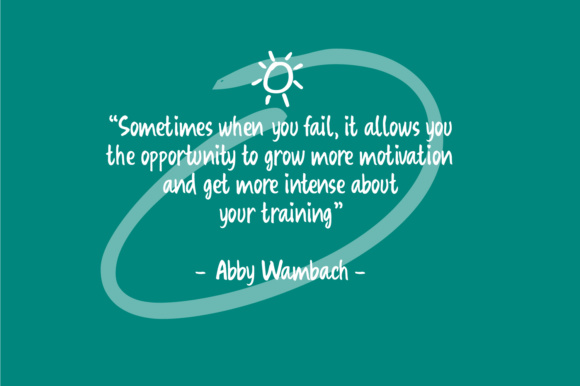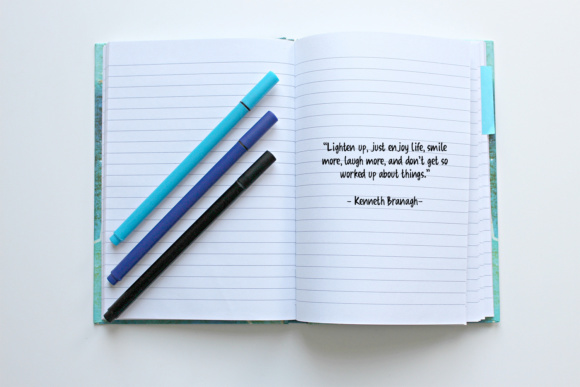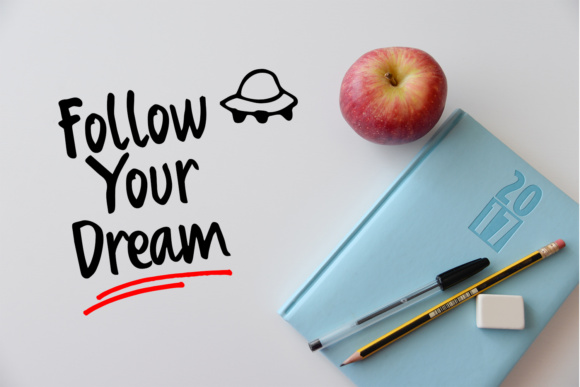
Introduction to Oraret Font
Have you ever been rummaging through your old scrapbook or photo album, reminiscing about the good ol’ days? That’s exactly what happened to me when I stumbled upon a faded Polaroid from my childhood. The handwritten note on the back, with its quirky, loopy letters, instantly transported me back to the ’90s. It was then that I knew I had to share this nostalgia with fellow designers – enter the Oraret Font.
This charming, handwritten sans serif font is a treasure trove for creatives looking to add a touch of retro flair to their projects. With its high-quality design and transparent background, the Oraret Font is a valuable resource for designers seeking to elevate their creative work. Whether you’re working on a commercial project or a personal endeavor, this font is sure to bring a smile to your face and a dash of personality to your design.
Key Features of Oraret Font
- High-quality, elegant script font with a transparent background, perfect for creative projects.
- Designed to be highly legible, with a clean and sophisticated aesthetic suitable for various applications.
- Unique, hand-crafted design elements make it an ideal choice for designers seeking a distinctive look.
Honest Review: Oraret Font
As a designer, I’ve had the pleasure of working with a wide range of fonts for various creative projects. Recently, I came across the Oraret Font, and I must say it’s a great addition to any design resource.
- ✨ High-quality design: The Oraret Font boasts a beautiful, modern design that’s perfect for creative projects that require a touch of elegance.
- ⚠️ Limited font weights: While the Oraret Font offers a range of styles, I wish it had more font weights to choose from.
- ⚠️ Limited language support: Unfortunately, the font only supports a limited number of languages, which might be a concern for designers working on international projects.
Overall, I’m impressed with the Oraret Font’s quality and design. While it may have a few limitations, it’s definitely a great addition to any design resource. If you’re looking for a high-quality font for your creative project, I highly recommend giving it a try!